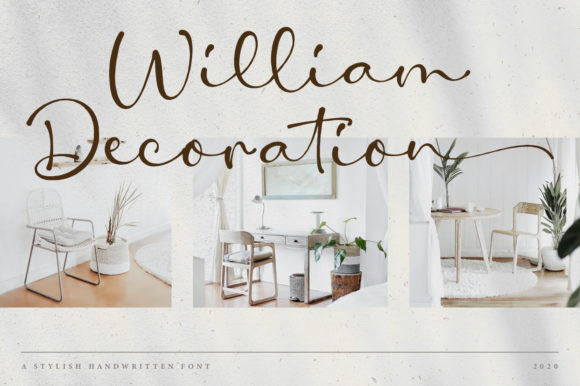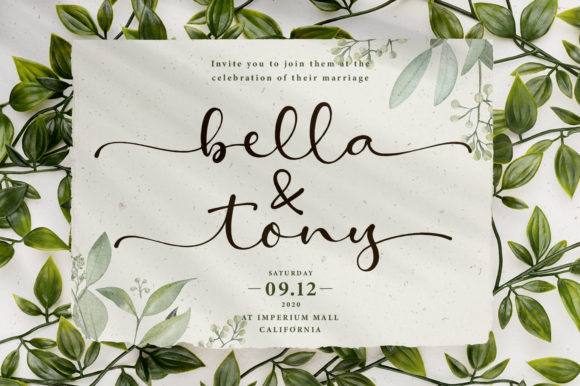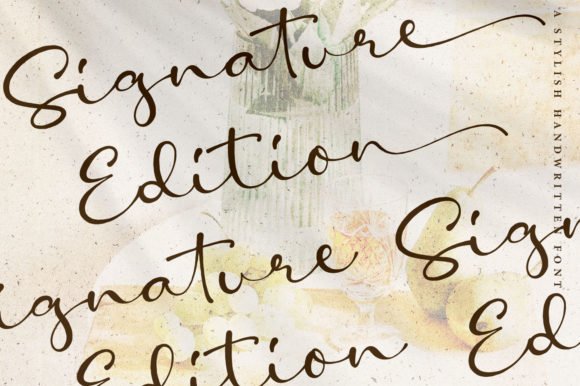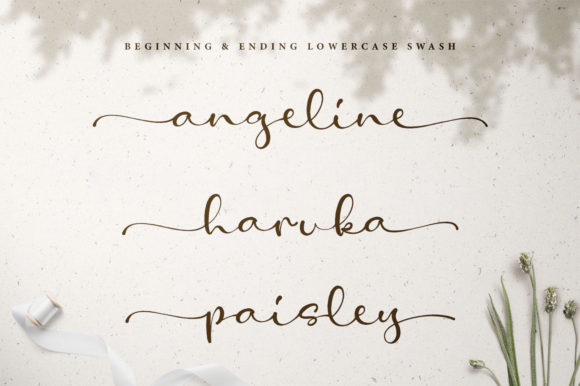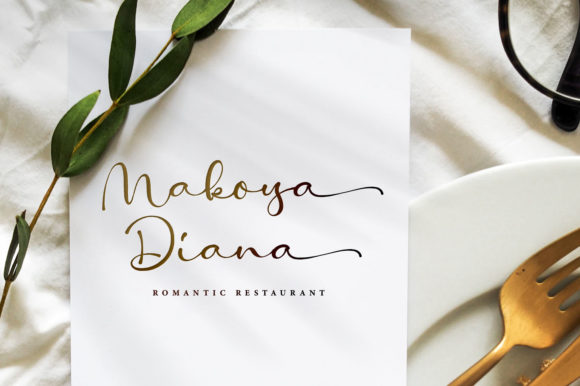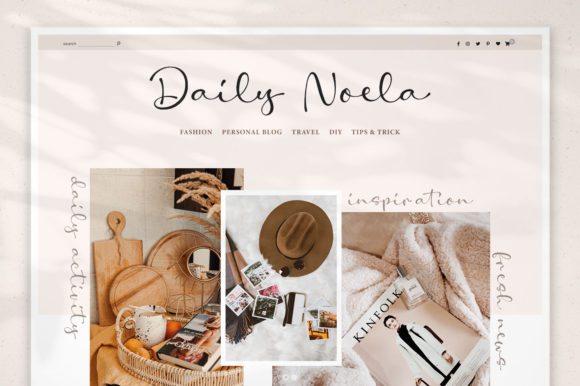
The Elegance of Amelia Stanley Font: A Designer’s Delight
I’ll never forget the time I was working on a logo design project for a luxury brand, and I just couldn’t seem to find the perfect font. The client wanted something elegant, sophisticated, and unique, but everything I tried looked either too bland or too over-the-top. That’s when I stumbled upon the Amelia Stanley font, and it was love at first sight! 💕
This beautiful, handwritten font has been a game-changer for my designs, and I’m excited to share its features, benefits, and uses with you. Whether you’re a designer, crafter, or creative hobbyist, you’ll love the versatility and charm of Amelia Stanley.
An Honest Review of Amelia Stanley Font
- ✨ Elegant and flowing script with beautiful, well-balanced characters
- ✅ Perfect for a variety of designs, including logos, stationery art, quotes, book covers, magazines, and branding
- 💫 Unique and distinctive style that sets it apart from other fonts
- 🎨 Highly versatile and can be used for both digital and print projects
While Amelia Stanley is an amazing font, there are a few things to keep in mind:
- 🤔 Limited availability of certain OpenType features, such as ligatures and stylistic alternates
A Practical Guide to Using Amelia Stanley Font
One of the best things about Amelia Stanley is its OpenType features and glyphs. With a range of stylistic alternates, ligatures, and swashes, you can add a touch of elegance and sophistication to your designs. Here are some tips for making the most of these features:
- Experiment with different stylistic alternates to find the perfect look for your design
- Use ligatures to create a more fluid, connected look
- Add swashes and flourishes to give your text a touch of personality
The Backstory of Amelia Stanley Font
Amelia Stanley is a fictional font, but its design inspiration comes from the elegant and refined scripts of the 18th century. Imagine a sophisticated lady, living in the English countryside, with a passion for calligraphy and letter writing. She’s the inspiration behind Amelia Stanley’s flowing lines, beautiful swashes, and refined character set.
Q: What type of designs is Amelia Stanley best suited for?
A: Amelia Stanley is perfect for designs that require an elegant and sophisticated touch, such as logos, stationery art, quotes, book covers, magazines, and branding.
Q: Is Amelia Stanley a difficult font to read?
A: No, Amelia Stanley is a highly legible font, even at smaller sizes. Its elegant script style makes it perfect for body text and headlines.